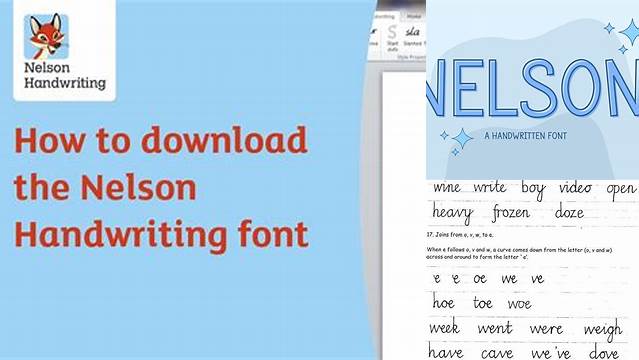
Hey everyone! If you're on the hunt for a way to add a touch of elegance, personality, and that oh-so-stylish flair to your projects, you've landed in the right place. We're diving headfirst into the wonderful world of the Nelson Cursive Handwriting Font Free Download! This isn't just any font; it's a gateway to crafting beautiful, eye-catching designs that scream creativity and individuality. Whether you're a seasoned designer, a student working on a project, or just someone who loves to dabble in the art of visual storytelling, this font is your new best friend. So, grab your virtual pens and let's explore everything there is to know about the Nelson Cursive Font. We'll cover where to get it, how to use it, and why it's such a fantastic choice for your creative endeavors. Buckle up, because your design journey is about to get a whole lot more exciting!
2. Unveiling the Elegance: Nelson Cursive Font Features and Styles
So, what makes the Nelson Cursive Handwriting Font Free Download so special? Well, let's dive into its features and styles. This font typically captures the essence of elegant, flowing cursive handwriting. Think graceful strokes, connected letters, and a touch of sophistication. The beauty of Nelson Cursive lies in its versatility. You can often find different variations, such as regular, bold, italic, or even those with added flourishes. The variations give you more flexibility to match the specific vibe you're going for in your design. Want a more subtle and understated look? Go for the regular version. Need something that pops out and grabs attention? The bold or italic versions are your best bet. And don't underestimate the importance of character sets and glyphs. A great font should have a comprehensive set of characters, including numbers, punctuation marks, and special characters. This ensures your font is ready for everything from social media posts to complete document layouts. Consider experimenting with various font sizes and letter spacing to find the perfect balance for your designs. The best part? The font's design will make your content feel personal and authentic. With a well-crafted design, this font helps in making content more visually appealing and in conveying a sense of creativity.
4. Nelson Cursive Font in Action: Design Ideas and Applications
So, where can you actually use your Nelson Cursive Handwriting Font Free Download? The possibilities are endless, my friends! This font is perfect for a wide range of design projects where a touch of elegance and personality is desired. Here are some ideas to get your creative juices flowing: Invitations: Wedding invitations, birthday party invitations, and other special event announcements. Nelson Cursive adds a personal and stylish touch that makes your invites stand out. Logos and Branding: This font can give your brand a sophisticated or friendly vibe. Think about using it for logos, taglines, and other branding elements. Social Media Graphics: Create eye-catching posts for Instagram, Facebook, and other social media platforms. Nelson Cursive is great for quotes, captions, and announcements. Website Design: Use the font for headings, titles, or even short paragraphs to create a visually appealing website design. It is very important to consider the legibility of the font when used for website design. Make sure your website is accessible and readable for all users. Pro Tip: Combine Nelson Cursive with a more legible font for body text. Print Materials: Flyers, brochures, posters, and greeting cards. Anything that needs a touch of class and a personal feel. The key is to experiment! Try out the font in different projects and see how it enhances the overall look and feel. Remember, the best designs are often a mix of fonts, colors, and imagery.
6. Nelson Cursive Font Alternatives: Explore Similar Handwriting Fonts
If you’re looking to expand your font library or want to find similar styles to the Nelson Cursive Handwriting Font Free Download, there are loads of great alternatives out there. Here are a few options, along with what makes them stand out: Brush Script MT: A classic brush script that has a slightly more casual feel than Nelson Cursive. Perfect for invitations, logos, and anything that needs a touch of personality. Lobster: This font is bold and modern and offers a distinctive look. It’s great for headlines and headings. Pacifico: It's a casual, rounded brush script. It has a fun and friendly vibe, ideal for projects aimed at younger audiences or designs that want a more relaxed style. Great Vibes: Known for its elegant, flowing style. It’s perfect for wedding invitations, branding, and elegant designs. Dancing Script: A playful script font with a bouncy feel. It’s ideal for more casual designs, such as greeting cards or social media graphics. Remember, the best font choice depends on your project's specific needs and the overall design aesthetic. Experiment with different font combinations to see what works best. Consider pairing a script font with a clean, sans-serif font for balance. The right font can make all the difference, so have fun exploring! Always check the license for each font before using it.
7. Combining Nelson Cursive with Other Fonts: Harmonious Font Pairings
One of the coolest things about the Nelson Cursive Handwriting Font Free Download is its potential to pair beautifully with other fonts. The key is to find a balance and create visual harmony. Here’s a guide to some awesome font pairings: Nelson Cursive + Sans-Serif: Combining Nelson Cursive with a clean sans-serif font is a classic and effective pairing. The script font adds personality while the sans-serif ensures readability. Example: Nelson Cursive for headlines, and a font like Open Sans or Montserrat for body text. Nelson Cursive + Serif: This is a more elegant pairing. It can work well for wedding invitations or formal designs. Example: Use Nelson Cursive for titles and a serif font like Playfair Display or Georgia for body text. Nelson Cursive + Display Font: For a bolder statement, pair Nelson Cursive with a striking display font. Be cautious, because it may be less readable. This pairing works well for logos or social media graphics. Example: Nelson Cursive with a bold display font like Bebas Neue or Anton. Consider the Mood: What kind of feeling are you trying to evoke? Experiment until you find what works. Test how the fonts look at different sizes and weights. Make sure that the combined fonts are legible.